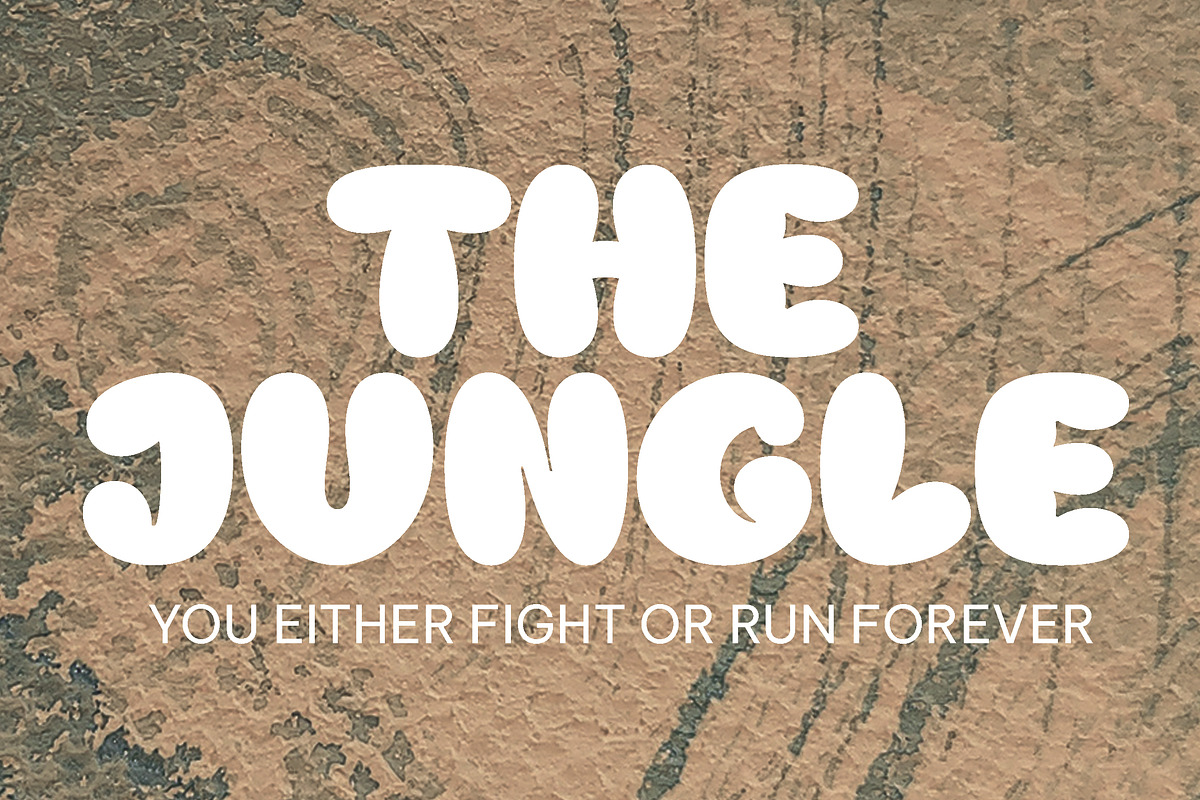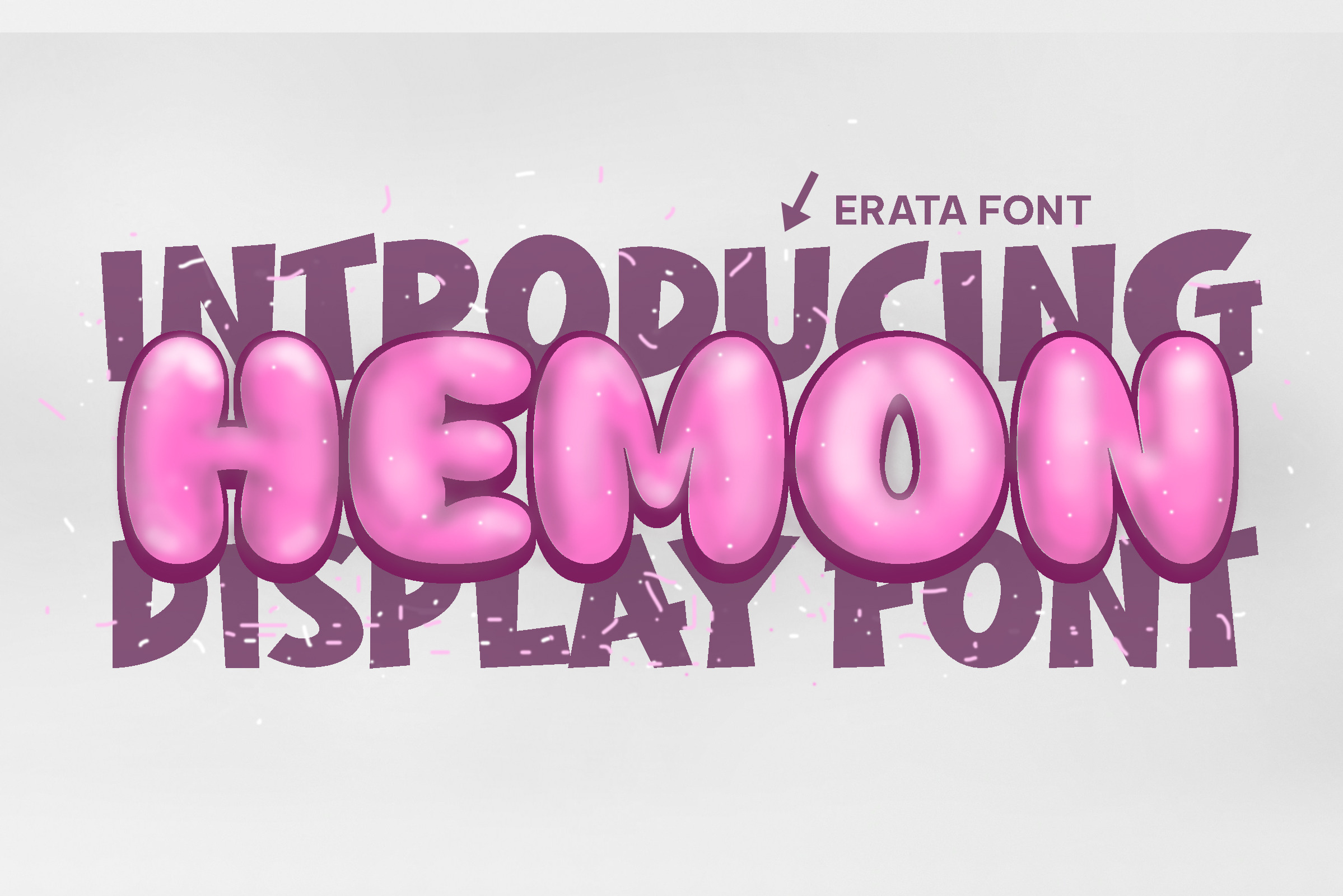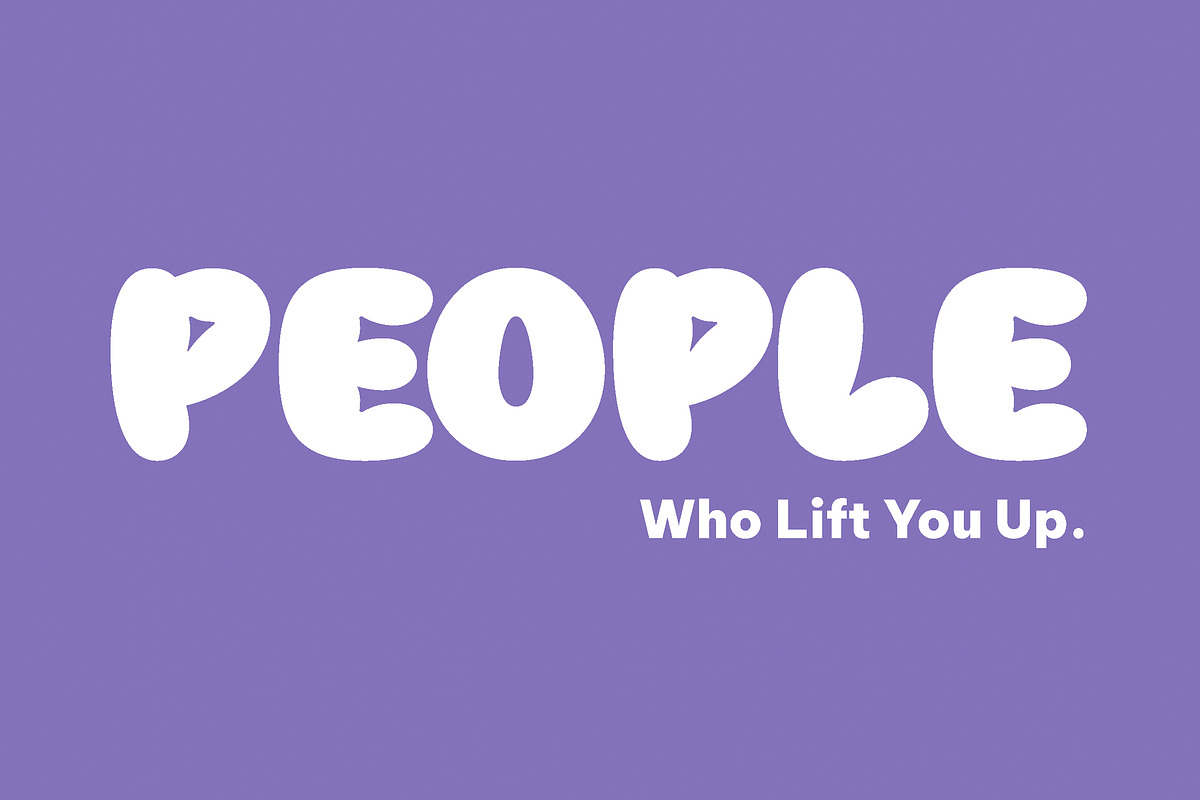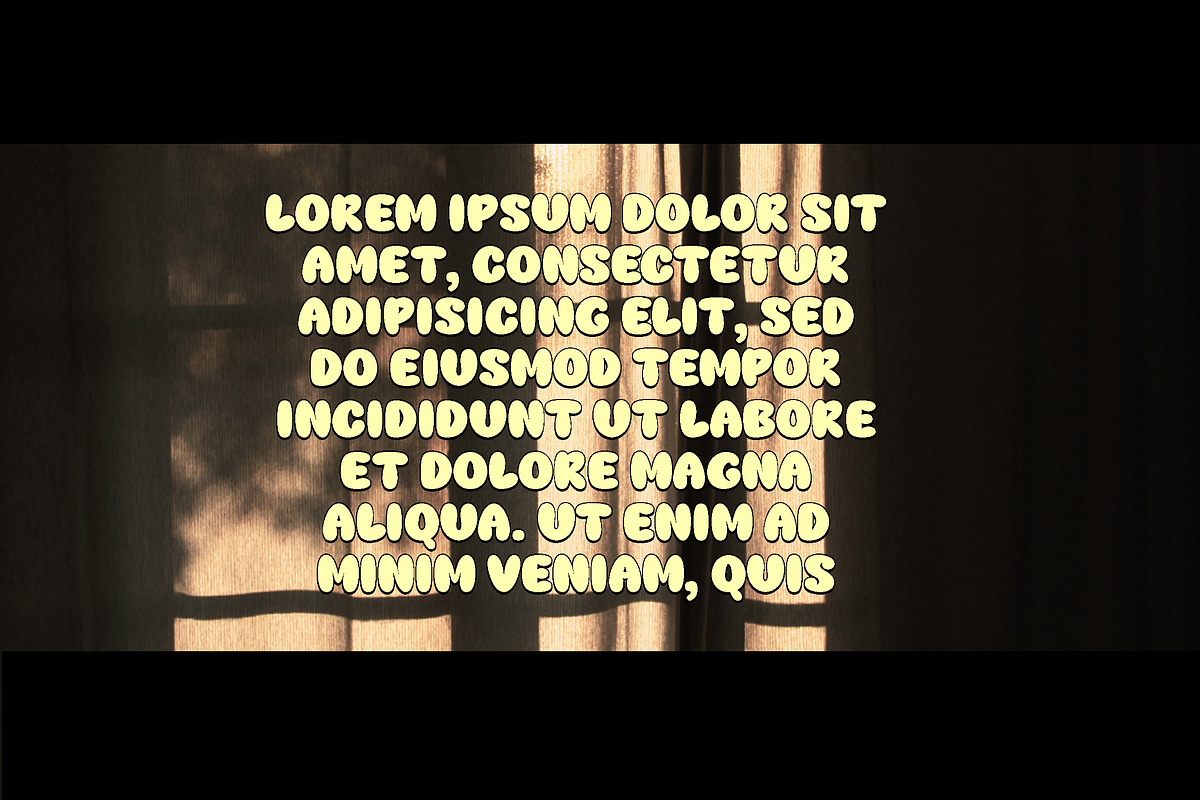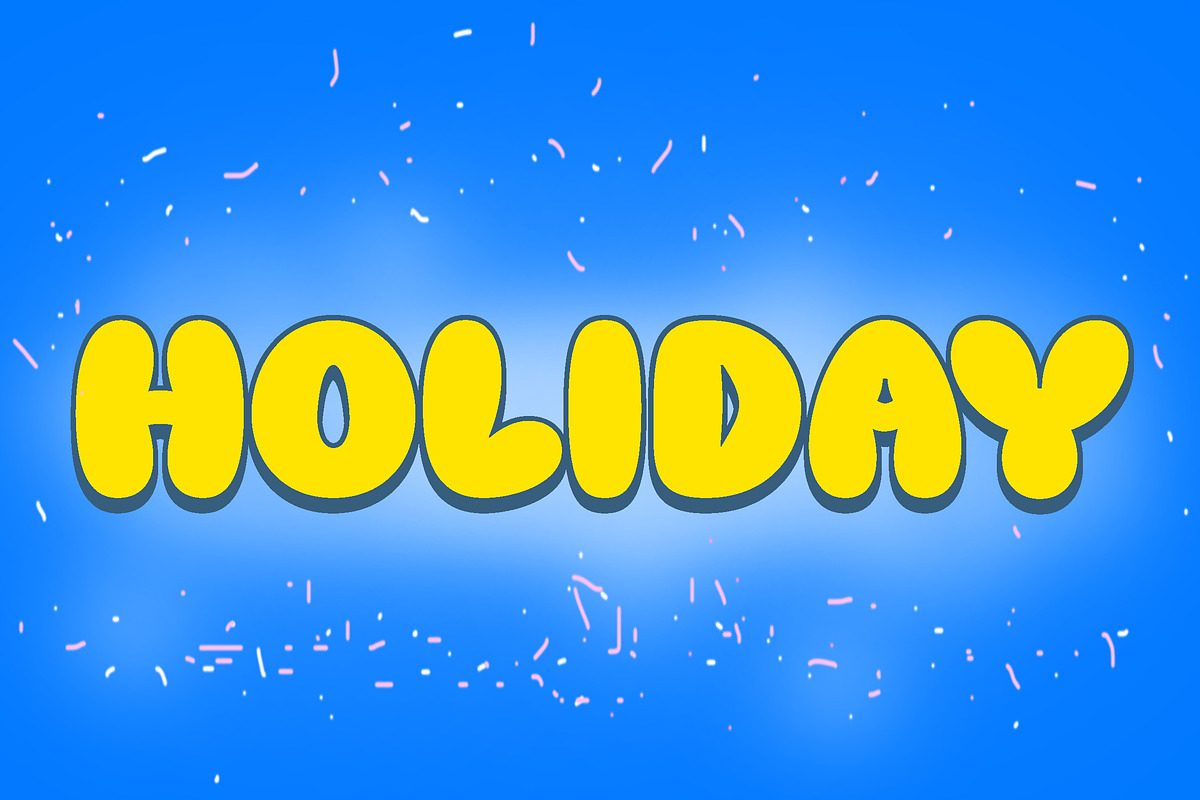
Hemon - cute and fun display font
Hemon is a cute and fun display font with bubble style. You will get two types of fonts in this pack, Regular, and Extrude version. Use this display font to add that special bubble touch to any design idea you can think of. This font is PUA encoded which means you can access all of the glyphs and alternates with ease! (please type the preview to see if I have what you need!)